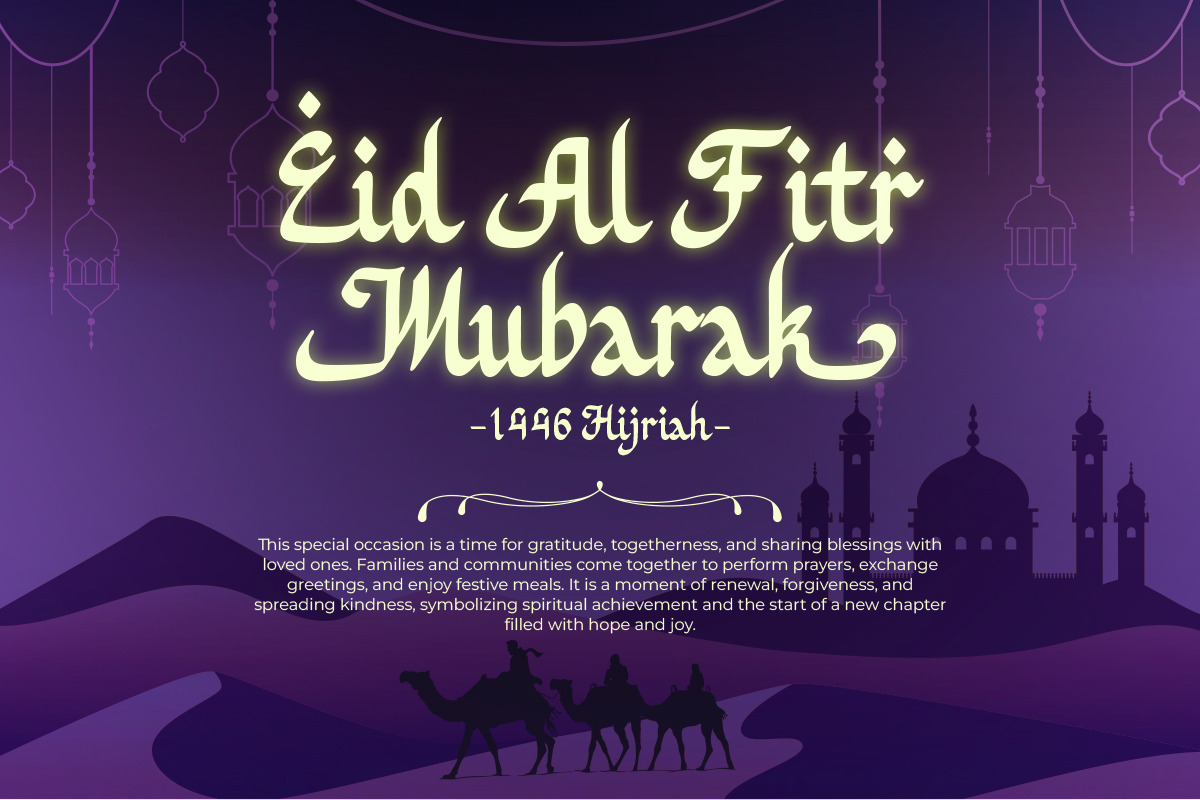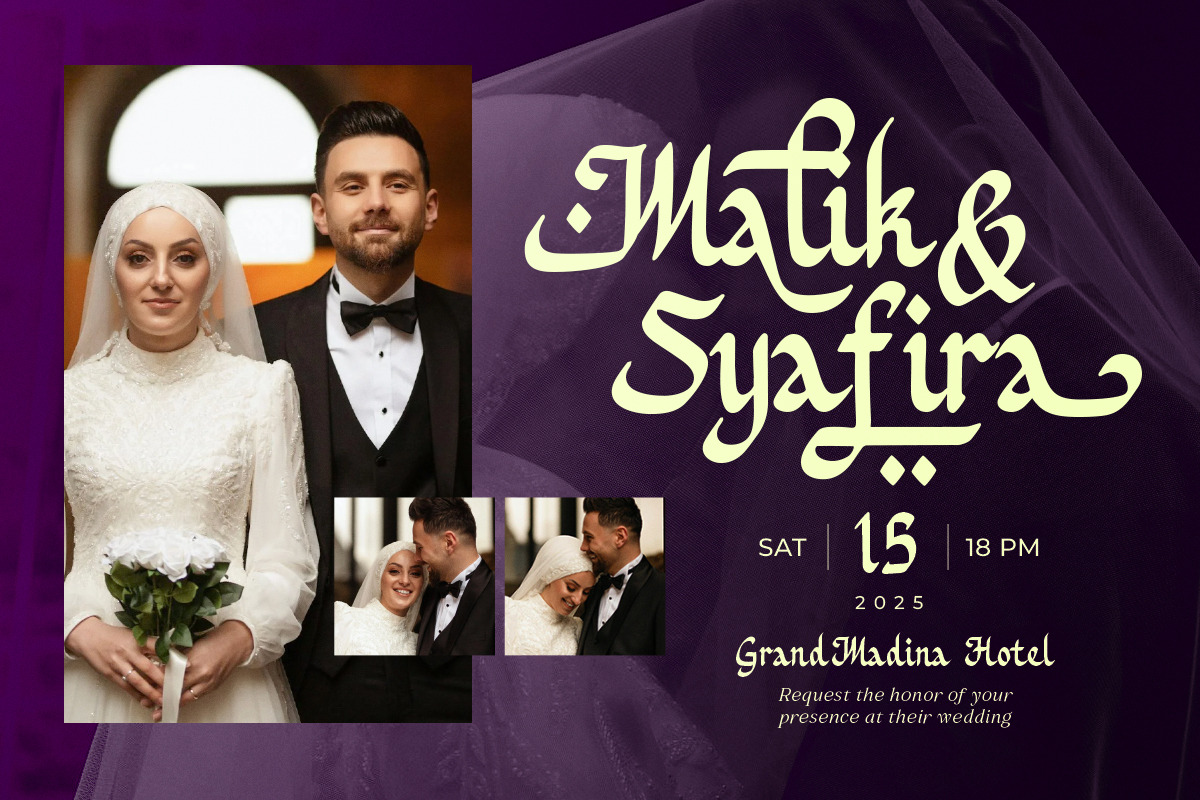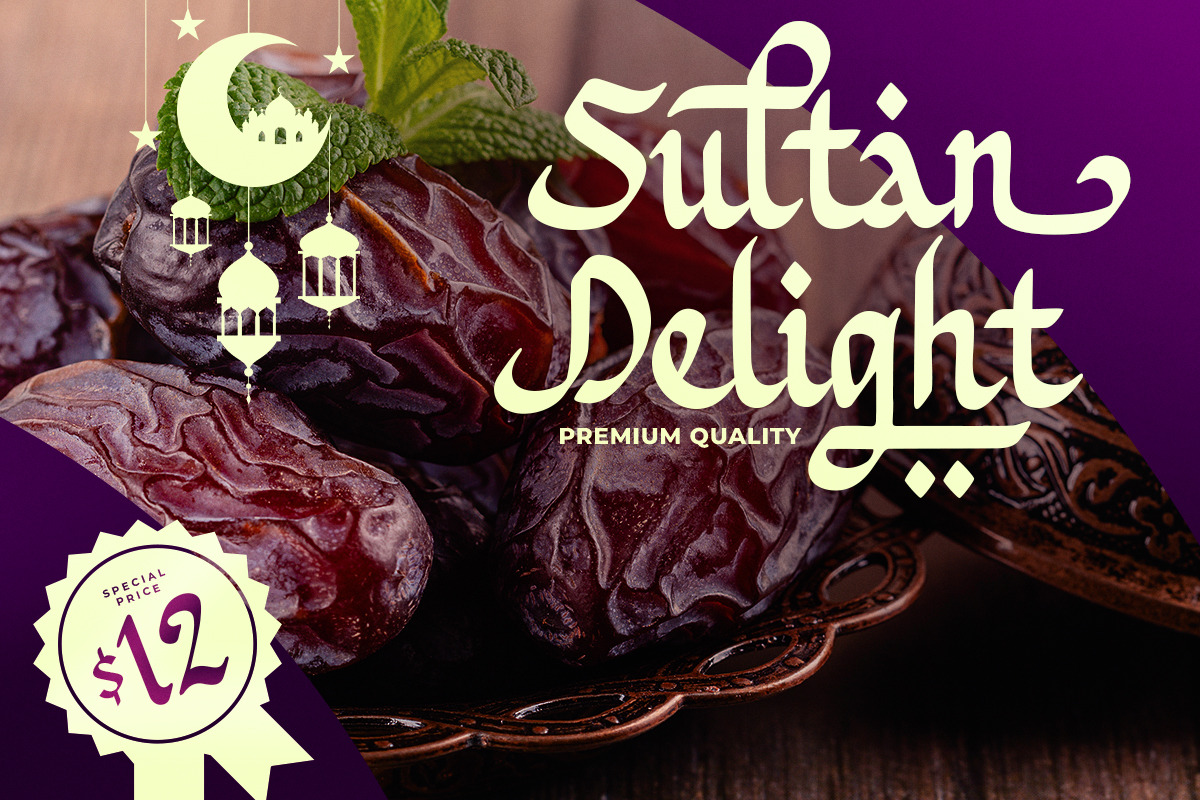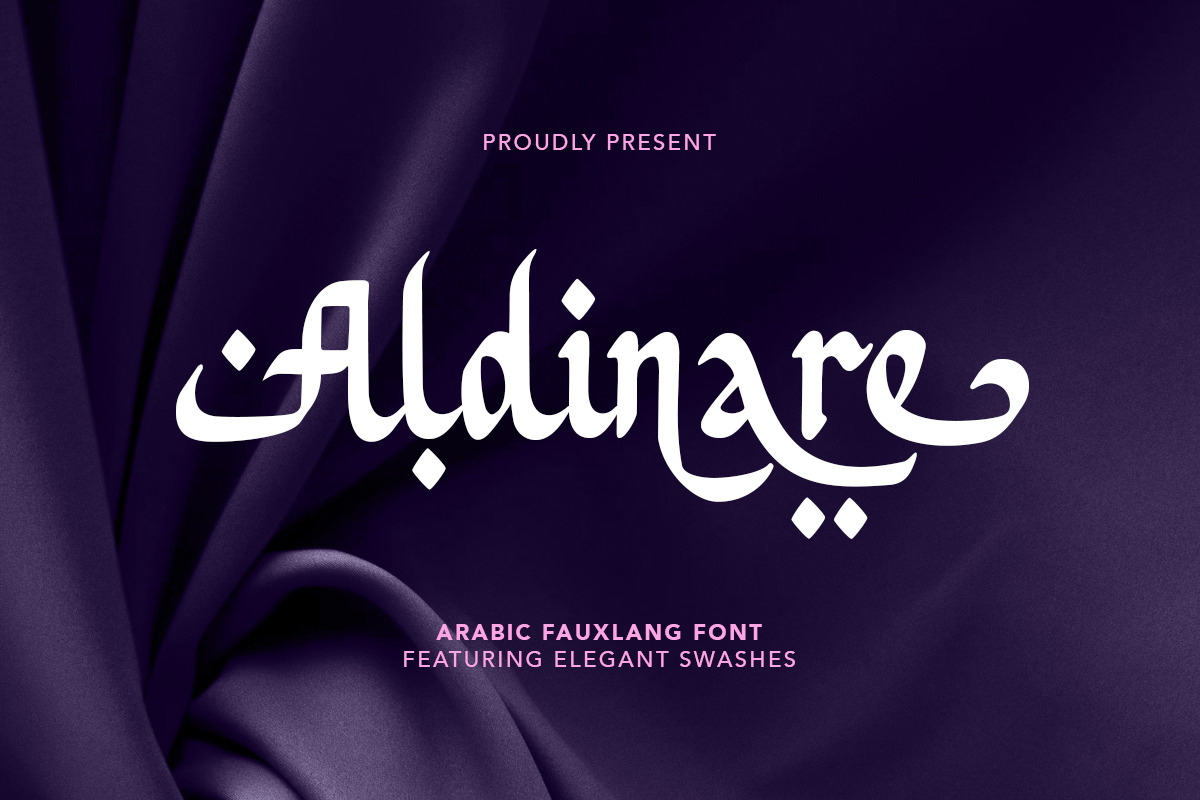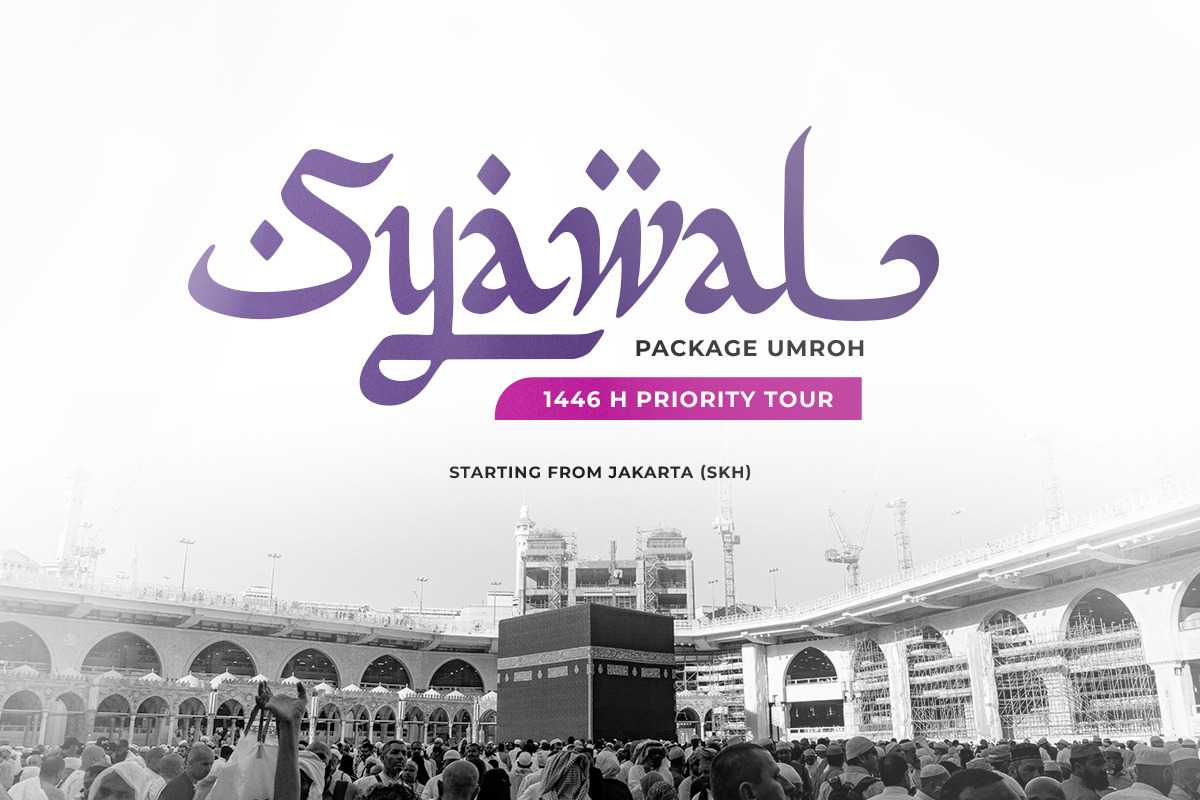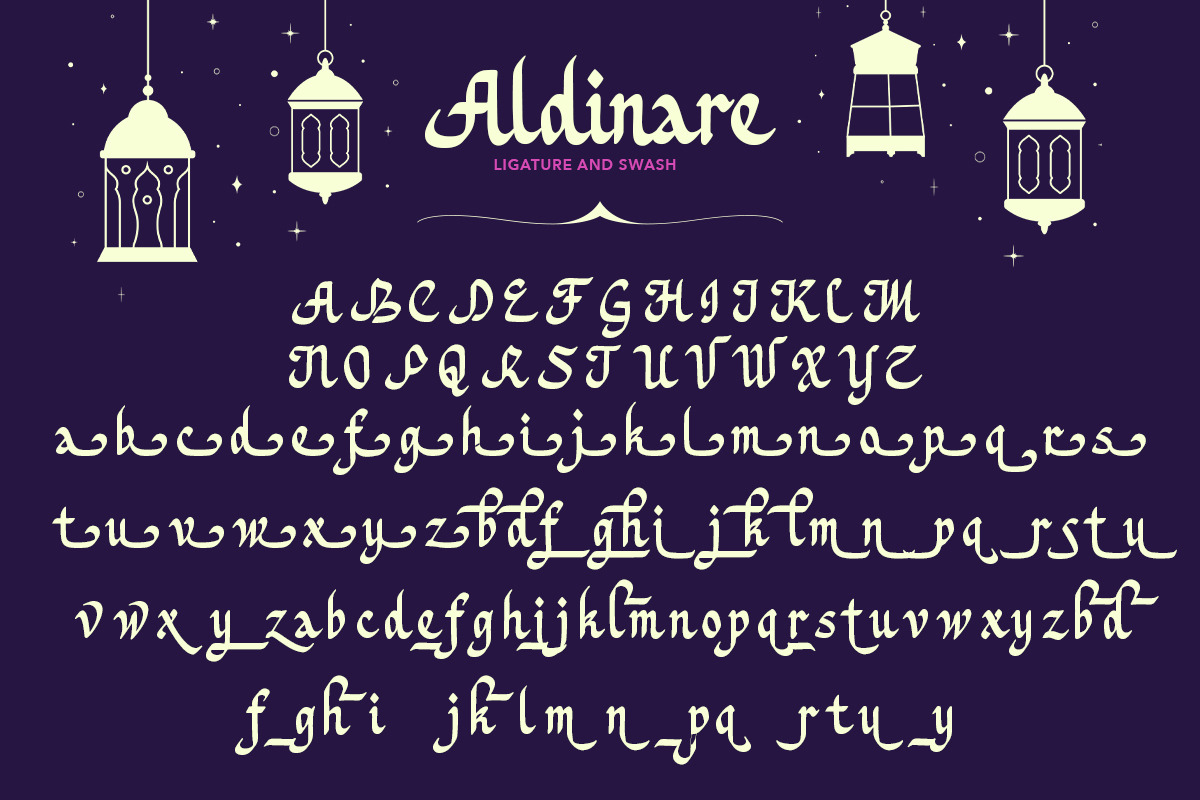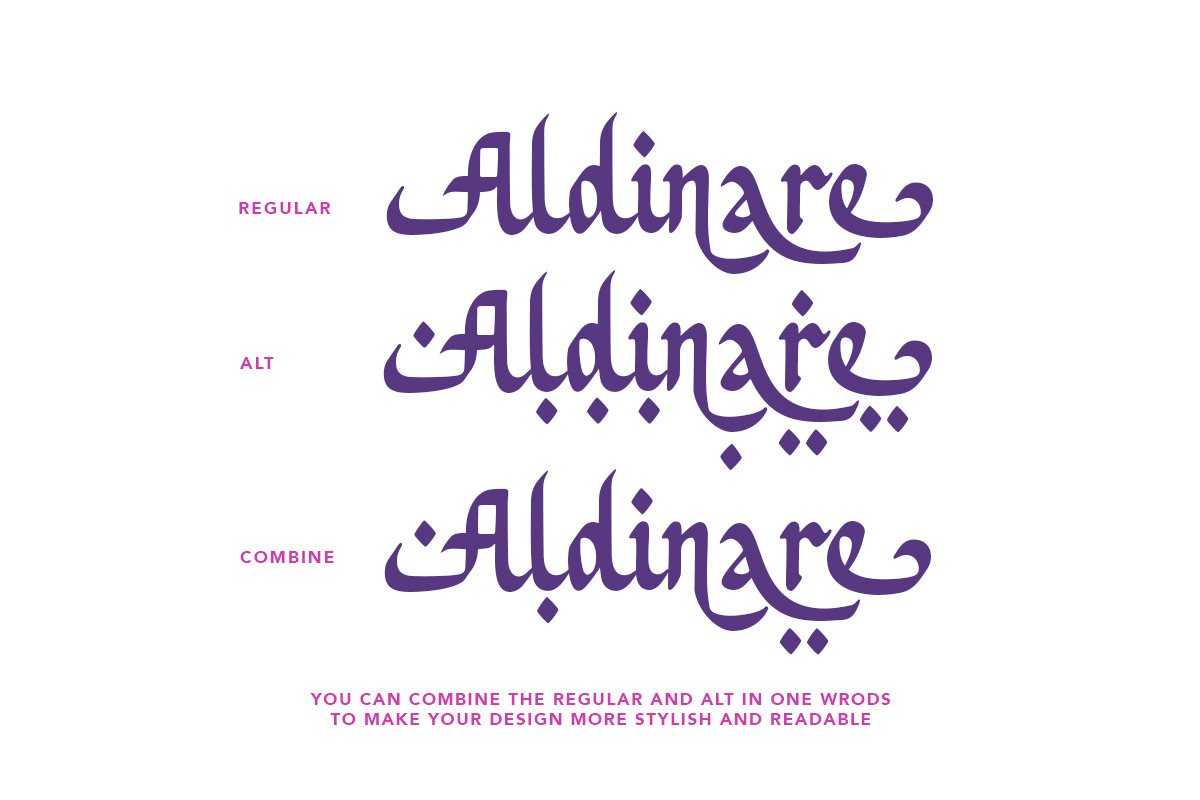
Aldinare - Bold Arabic Fauxlang Font
Aldinare is a bold Arabic fauxlang font family that have two style, Regular and Alt. With stylish alternates, you can make your design more stunning! You can combine the two styles in one words to make your design more stylish and readable. This font, which was genuinely influenced by the Arabic alphabet, will give your project a more Arabian appearance while keeping it readable for everyone. Aldinare can be used for any project, including branding, logo creation, wedding invitations, and special occasions like Ramadan and Islamic holidays that related to Islamic Content. This font also include number, symbol and support multilingual.